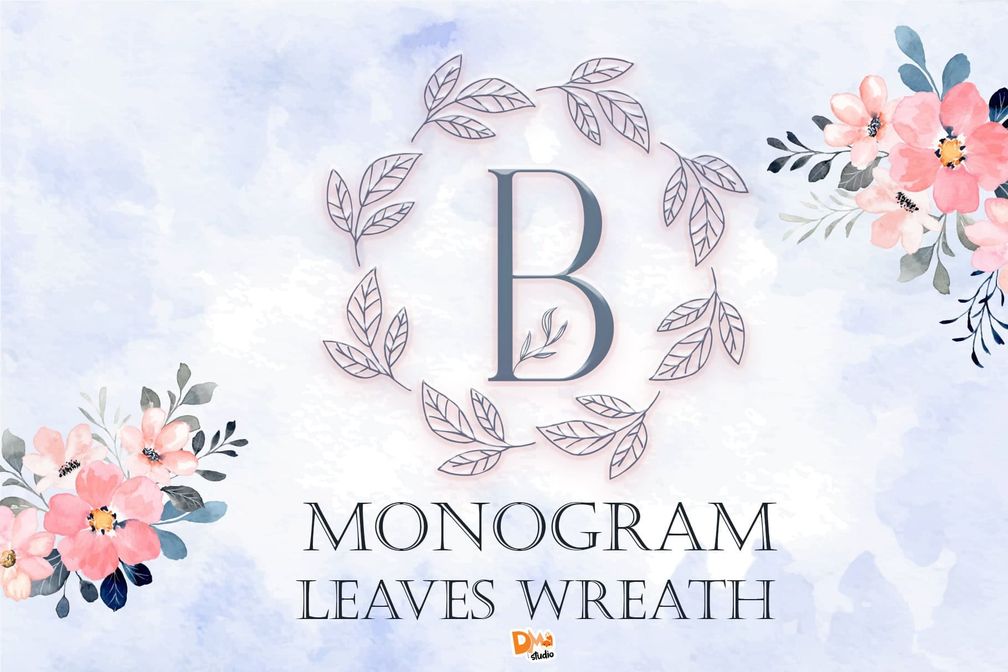
Monogram Leaves Wreath Font
Monogram Leaves Wreath Font is a beautiful and versatile typeface that combines elegant lettering with intricate leaf wreath designs. Perfect for adding a touch of nature-inspired sophistication to your designs, this font is ideal for monograms, wedding invitations, stationery, and more.
1. Nature-Inspired Design: The Monogram Leaves Wreath Font features elegant letterforms adorned with intricate leaf wreath designs, adding a touch of natural sophistication to your text.
2. Versatile Usage: Perfect for various applications, including monograms, wedding invitations, stationery, logos, and decorative elements, enhancing your designs with timeless elegance.
5. Monogram and Wreath Combinations: Offers a variety of monogram letters and leaf wreath designs, allowing for creative customization and personalized compositions.